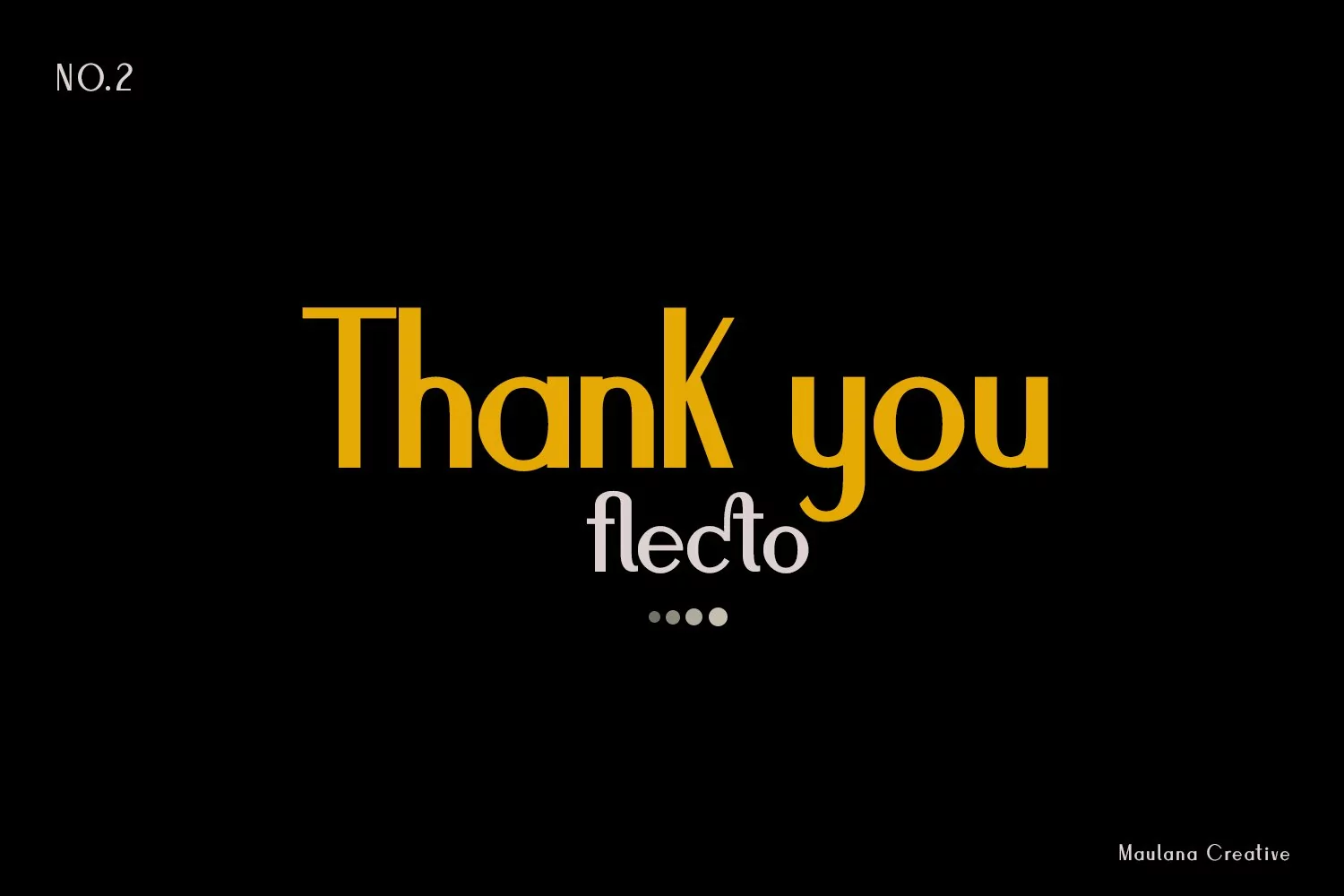
Flecto Clean Sans Serif is an all caps display font. With bold weight, unique and fun character with a bit of ligatures. To give you an extra creative work. Flecto font support multilingual more than 100+ language. This font is good for logo design, Social media, Movie Titles, Books Titles, a short text even a long text letter and good for your secondary text font with script. Make a stunning work with Flecto font.
Flecto